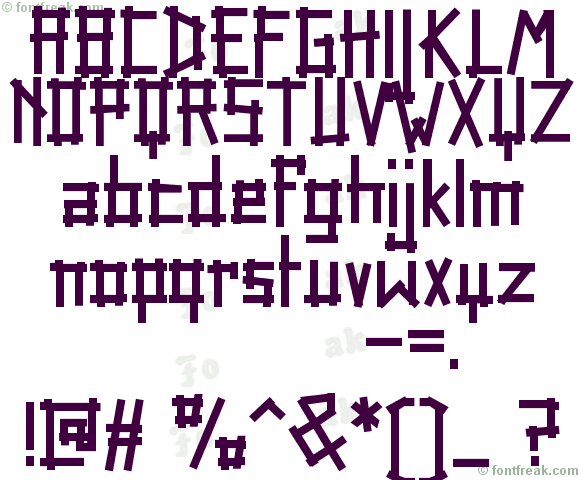
Tape Rail Regular
About Tape Rail Regular
Tape Rail Regular is a distinctive display typeface designed by MonoFonts, embodying a unique aesthetic that draws inspiration from industrial design and retro signage. This font is categorized as a decorative typeface, characterized by its bold, block-like letterforms that mimic the appearance of tape lettering. The stroke weight is relatively uniform, contributing to a strong visual presence, while the overall spacing is tight, allowing the letters to interact dynamically and create an engaging text layout.
The visual characteristics of Tape Rail Regular include a rugged yet playful style, with angular edges and a slight irregularity that adds to its charm. The design is both modern and nostalgic, making it an ideal choice for various creative projects. This font shines in applications such as movie posters, where its boldness can effectively capture attention, as well as in graphic design for merchandise, helping to convey a sense of uniqueness. Additionally, it works well for restaurant menus, where its distinct look can enhance the dining experience, and for branding materials, allowing small business owners to establish a memorable identity.
What sets Tape Rail Regular apart is its ability to blend a sense of nostalgia with modern design principles, making it a striking choice for anyone looking to make a statement. By incorporating this font into your work, you can elevate your design projects with a unique style that stands out while remaining approachable. Don't miss the opportunity to explore the Tape Rail Regular font free download and discover its potential for your creative endeavors.